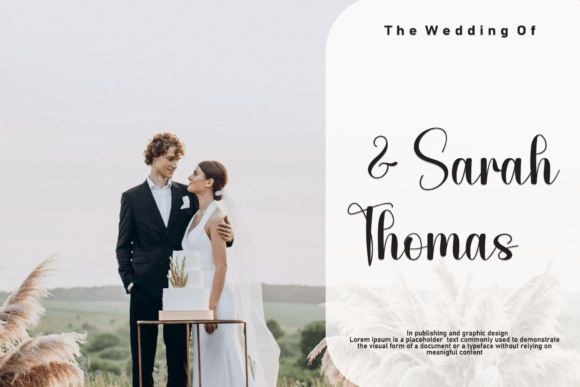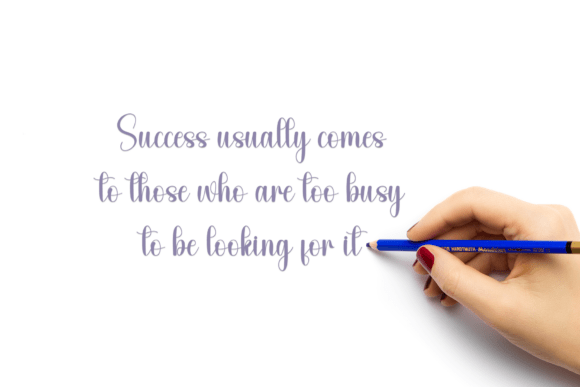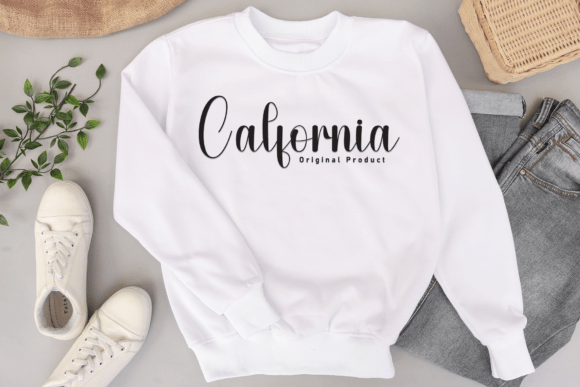
Introduction to Keynote Font
As a designer, there’s nothing quite like the thrill of finding the perfect font to bring a creative project to life. It’s that moment when the words on the page start to dance, and the entire design comes together in perfect harmony. For those who’ve been searching for a stylish script font that exudes artistic flair and contemporary elegance, we’ve got the solution: the Keynote Font.
This stunning font is a game-changer for designers, offering a unique blend of hand-painted calligraphy and modern sophistication. With its fluid brush strokes, dynamic curves, and expressive letterforms, it’s the perfect design resource for anyone looking to add a touch of creativity and high quality to their work. Whether you’re creating a logo, invitation, or social media graphic, the Keynote Font is sure to make your design stand out.
Key Features of Keynote Font
- High-quality design resource ideal for creative projects, presentations, and documents.
- Features a clean and modern design, perfect for use in presentations, brochures, and other marketing materials.
- Available in multiple weights and styles, providing designers with a range of options for their creative projects.
Honest Review: Keynote Font
As a designer, I’m always on the lookout for high-quality design resources to enhance my creative projects. Recently, I came across the Keynote Font, and I’m excited to share my honest review with you.
What works well: ✨ The Keynote Font is a free download, making it an excellent addition to any designer’s collection. It’s also incredibly versatile, suitable for a wide range of creative projects, from presentations to marketing materials. The font’s clean and modern design makes it perfect for showcasing text on a transparent background, allowing your content to take center stage.
Limitations: ⚠️ While the Keynote Font is an excellent resource, it’s not without its limitations. The font family is relatively small, with only a few weights and styles to choose from. Additionally, the font may not be as customizable as some other design resources.
Overall, I’m impressed with the Keynote Font. Its high-quality design, free download, and versatility make it a valuable addition to any designer’s toolkit. While it may have some limitations, I believe it’s a great resource for any creative project.
Keynote Font
The Keynote Font is a versatile and high-quality design resource ideal for creative projects. It offers a wide range of fonts, each with a unique style and feel, allowing designers to add a touch of elegance and sophistication to their work.
Tips for Getting the Most Out of Keynote Font
When using the Keynote Font, it’s essential to choose the right font size and style to ensure maximum readability. You can also experiment with different font combinations to create a unique and eye-catching design.
The Keynote Font is ideal for various creative projects, including:
- Branding
- Typography-based designs
- Print materials
- Digital designs
Transparent Background and High-Quality Images
The Keynote Font is a high-quality design resource that can be used with transparent backgrounds, making it ideal for creating stunning designs with a professional look.
Alternatives to Keynote Font
Can I customize the Keynote Font for a transparent background?
Yes, Keynote Font is designed to be highly customizable, allowing you to create a transparent background effect. To achieve this, you can use a graphics editor like Adobe Illustrator or Canva to create a design with a transparent background. Alternatively, you can use a design software that supports transparent backgrounds, such as Keynote or PowerPoint. Simply paste the Keynote Font into your design and adjust the background settings as needed. This will give you a high-quality design resource with a transparent background that’s perfect for your creative project.